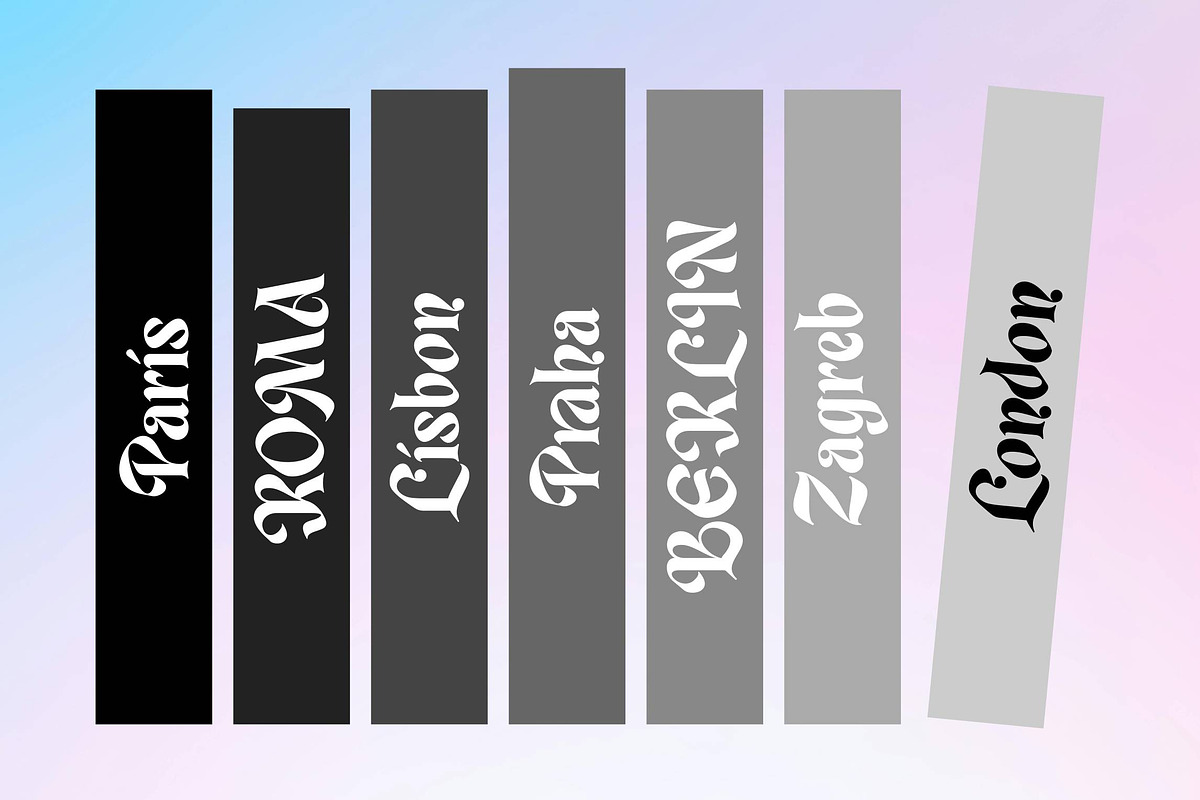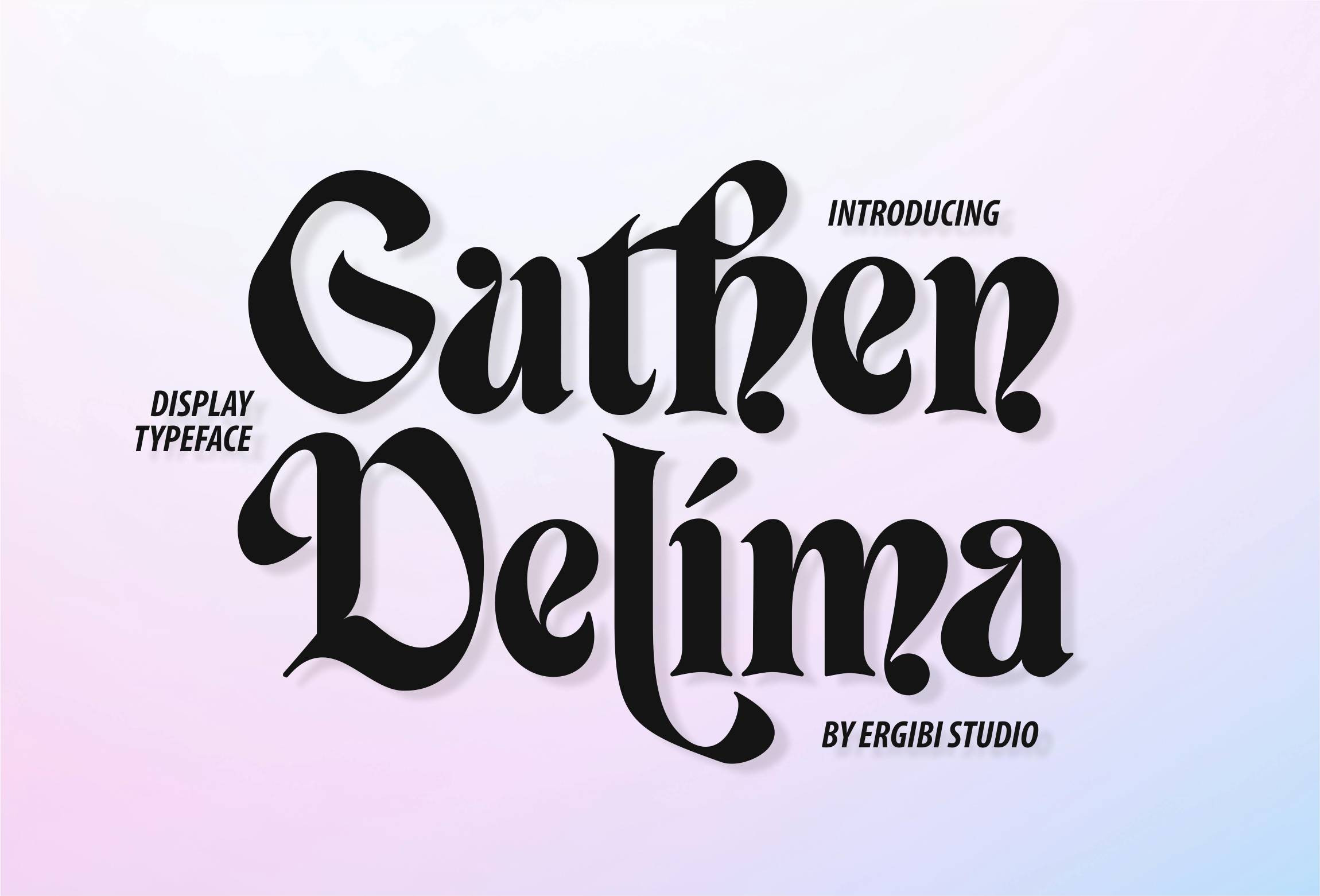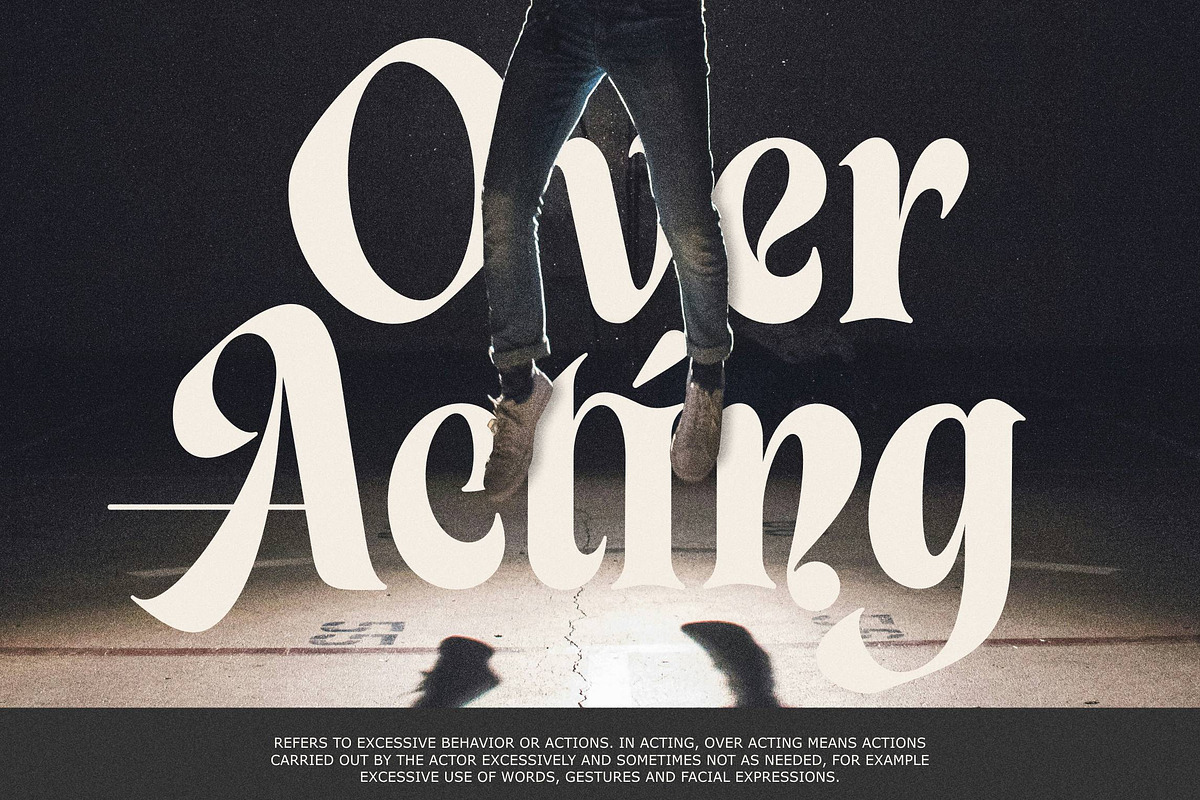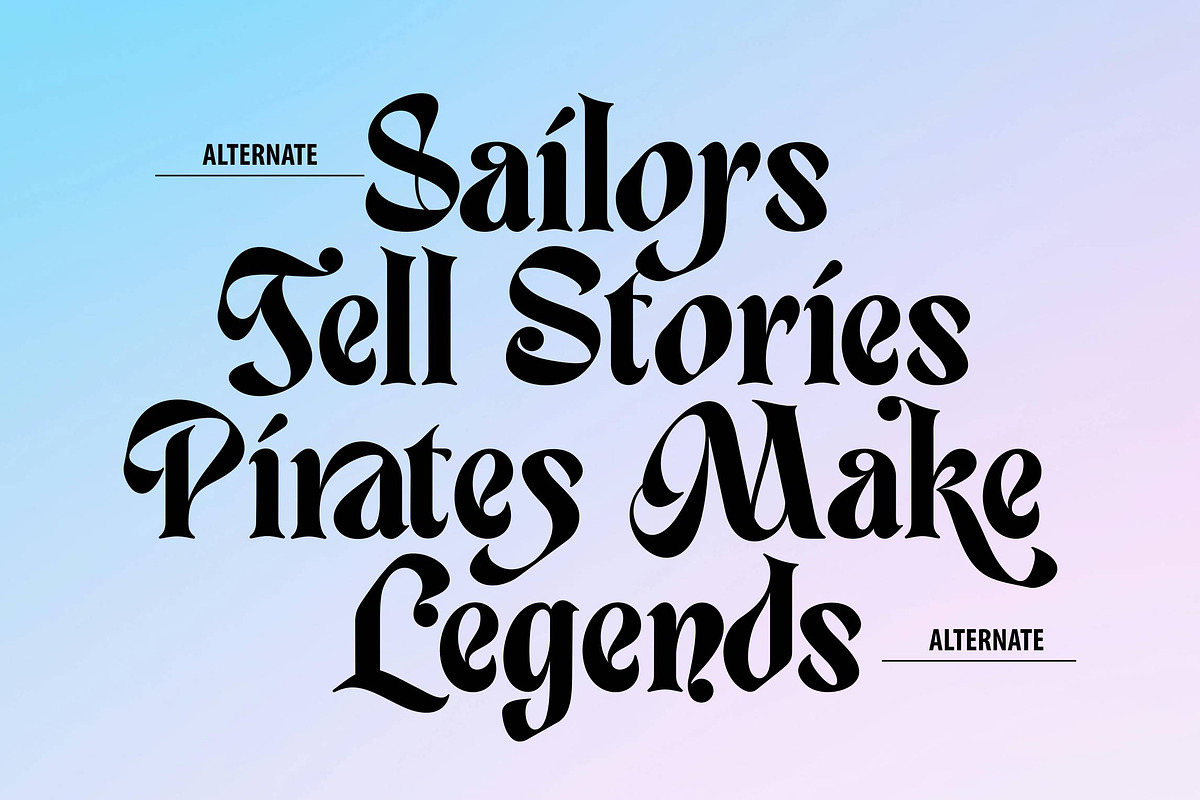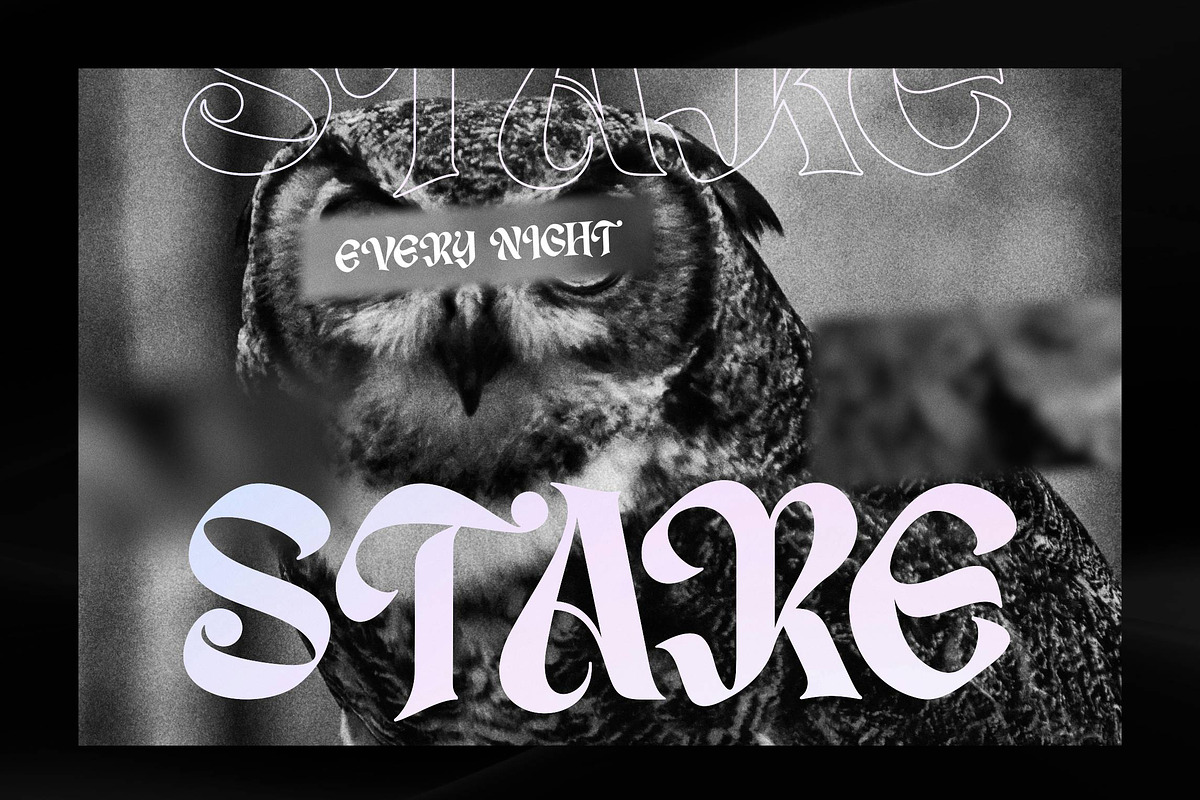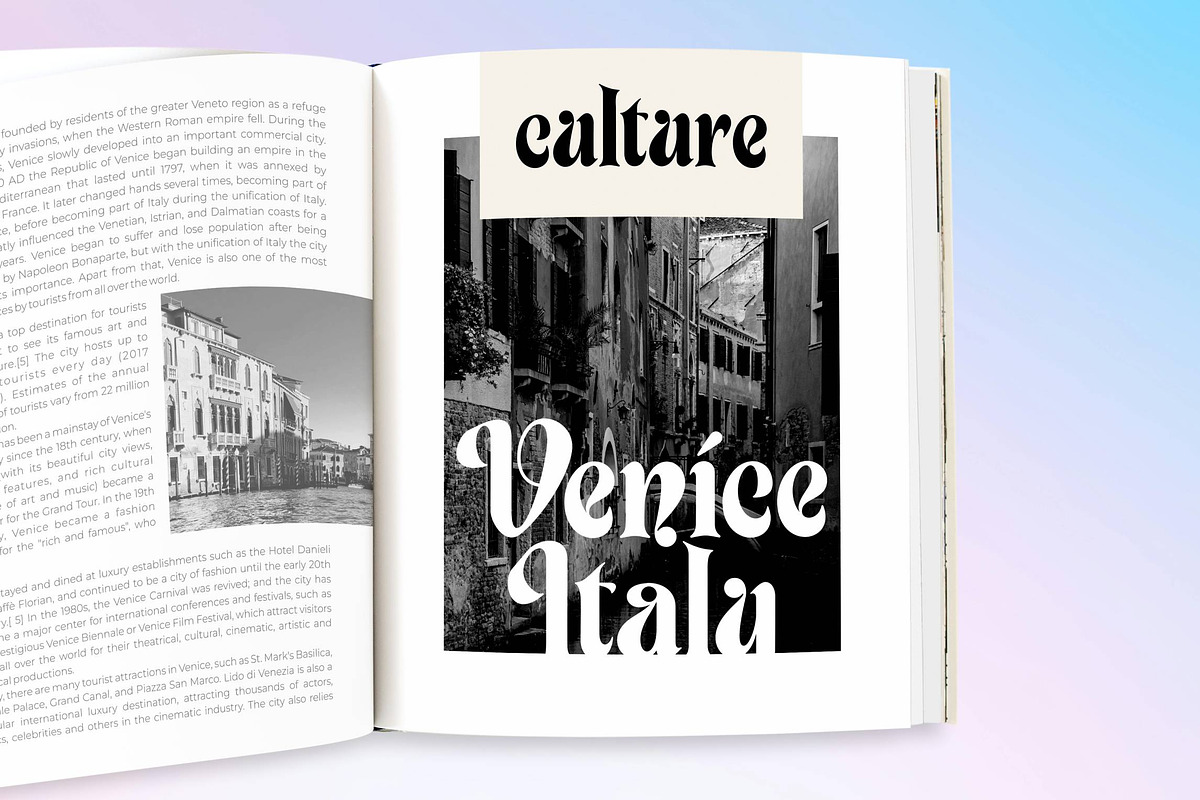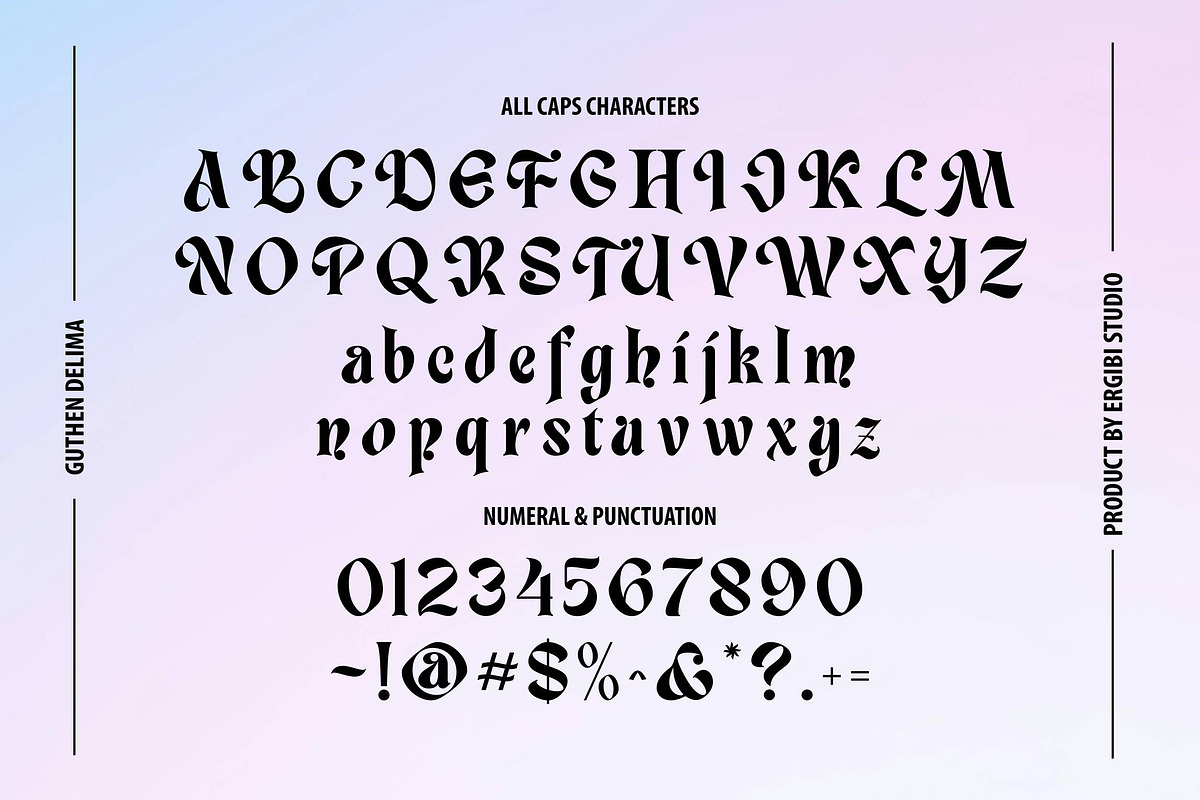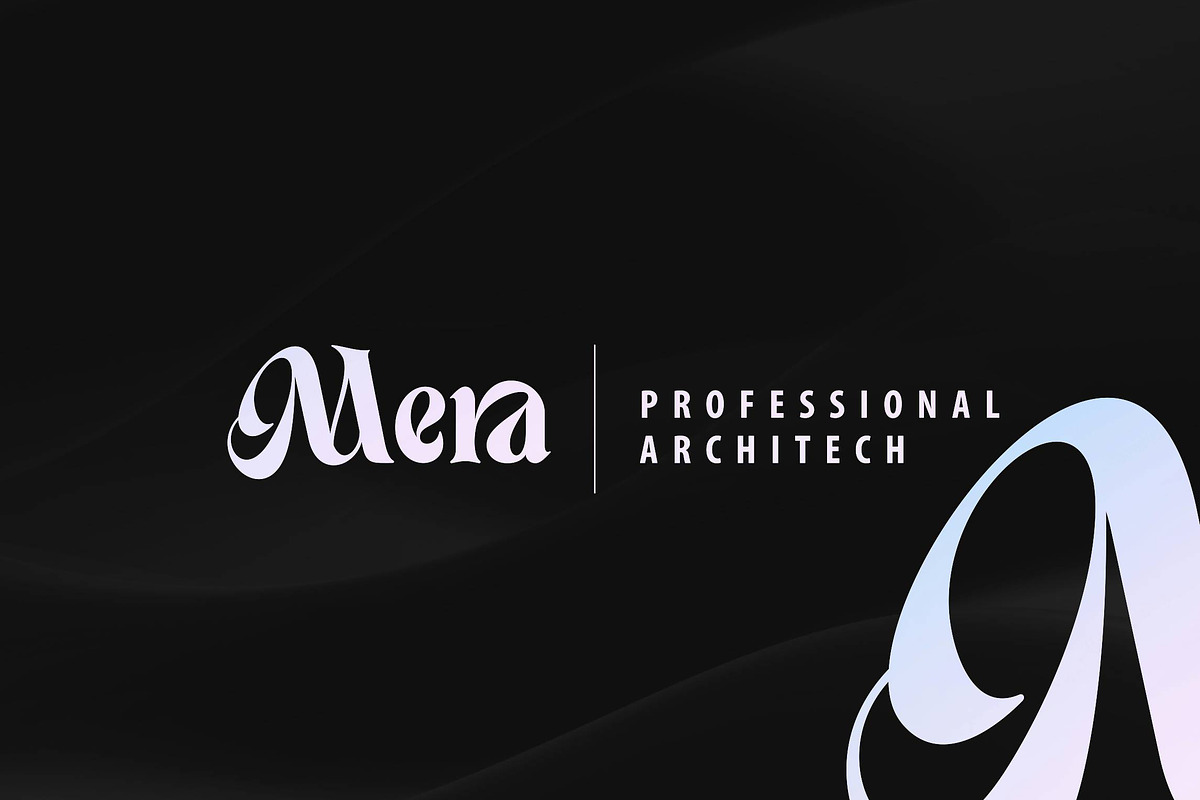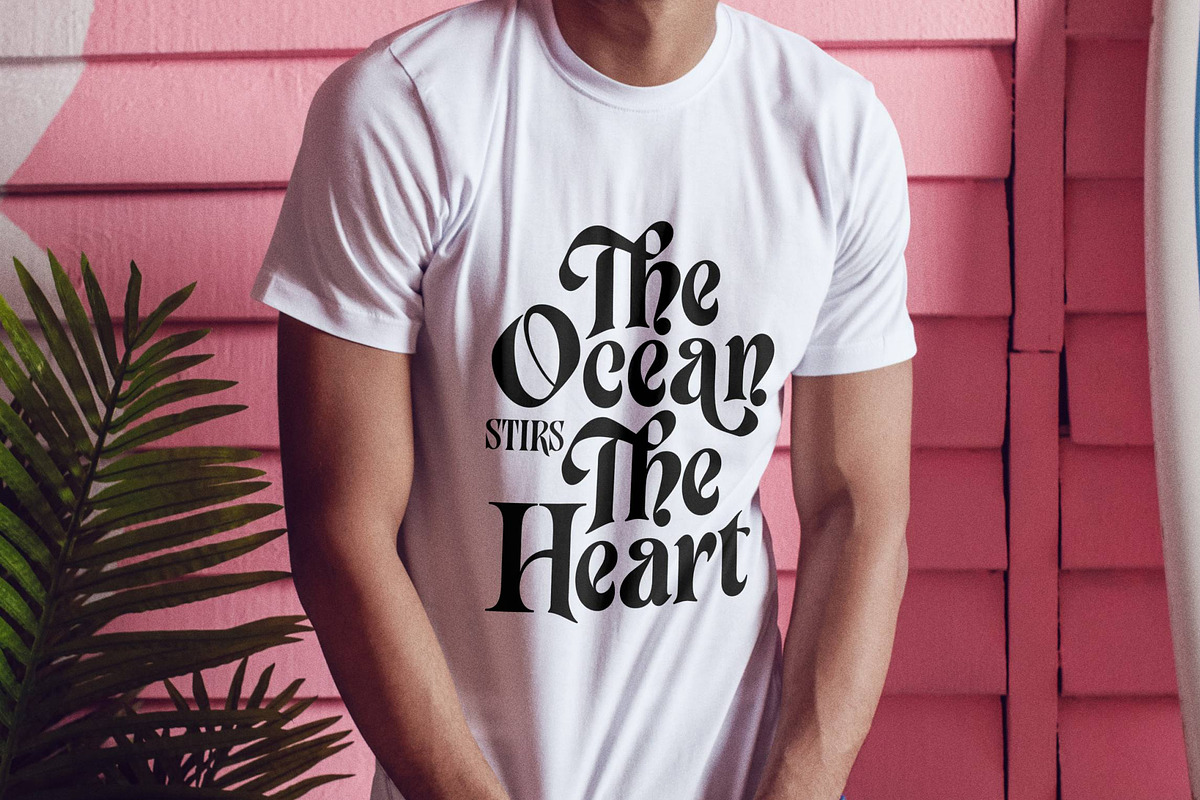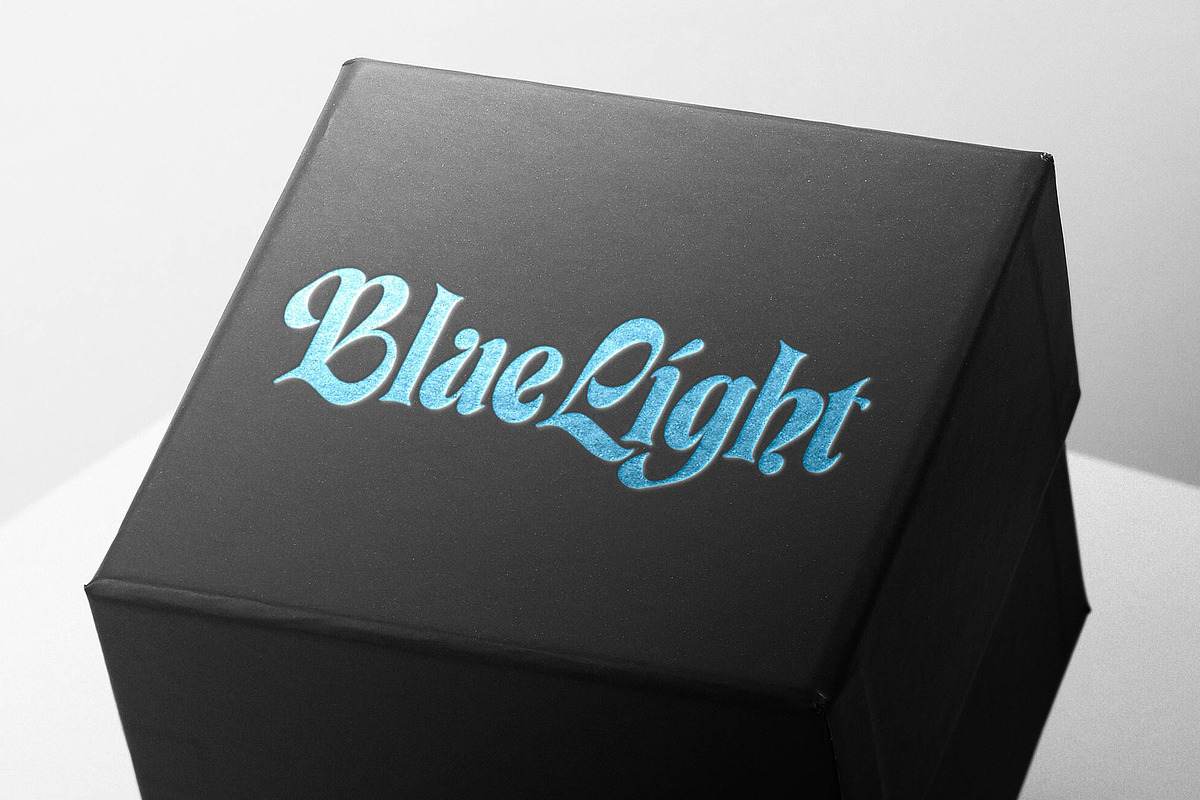
Guthen Delima - Display Typeface
Guthen Delima - Display Typeface. This font has unique and bold, make it great to be used for modern and minimalistic design theme. Stylistic alternate makes this typeface cool and stands out rather than the regular display font, perfectly for headlines, logos, posters, packaging, T-shirts,coffee shops, restaurants, magazine’s headers, signs or gift/post cards,cafe’s and weddings or any type of advertising purpose.